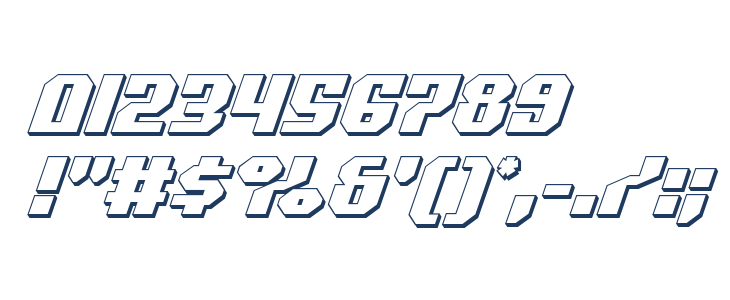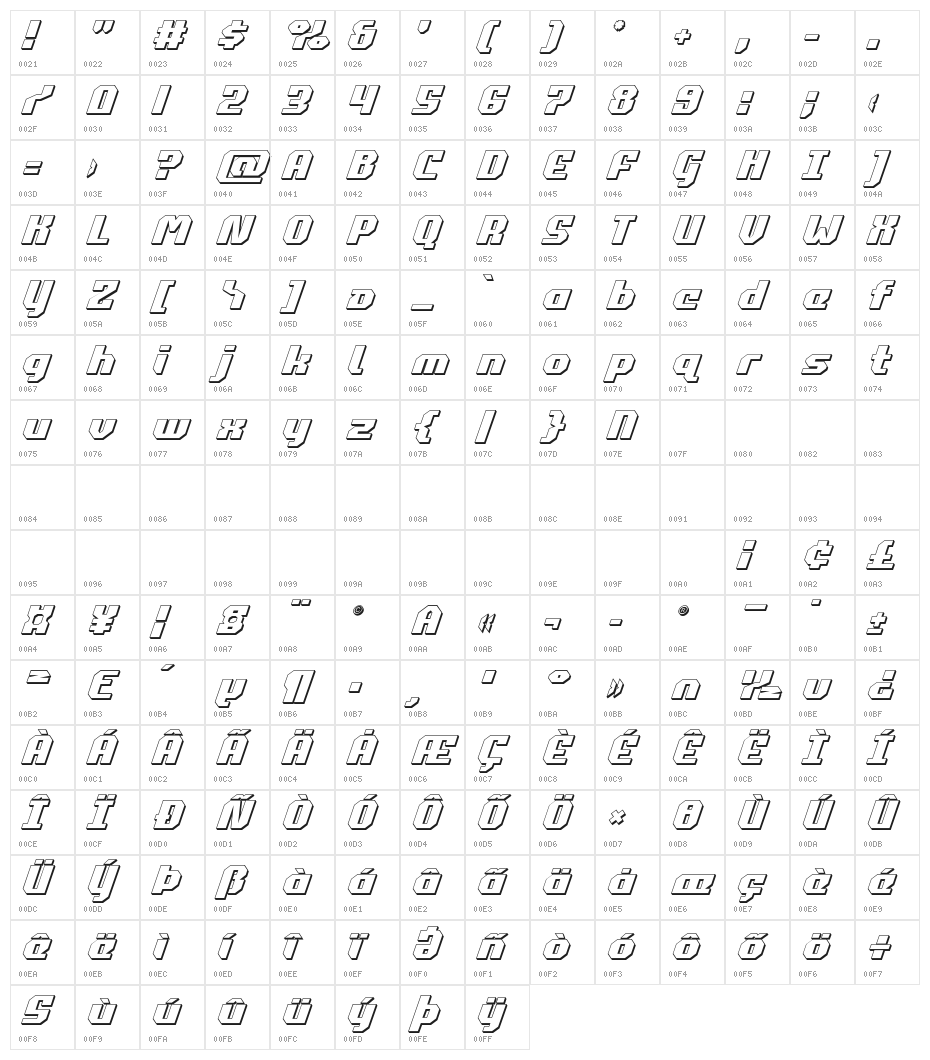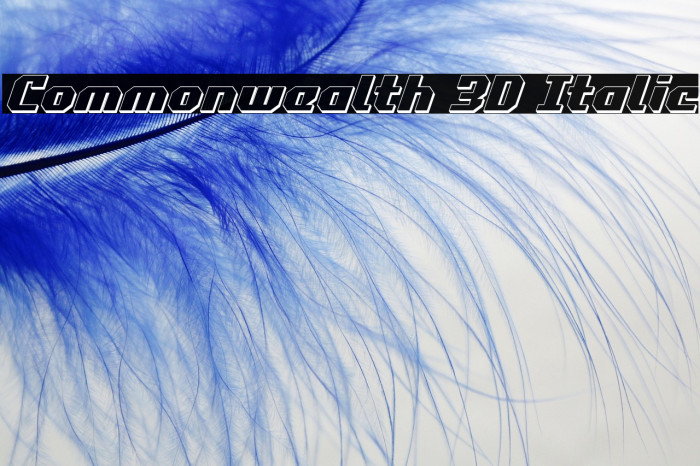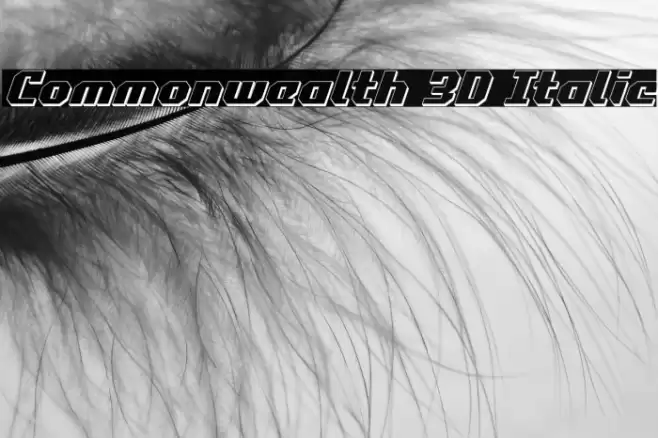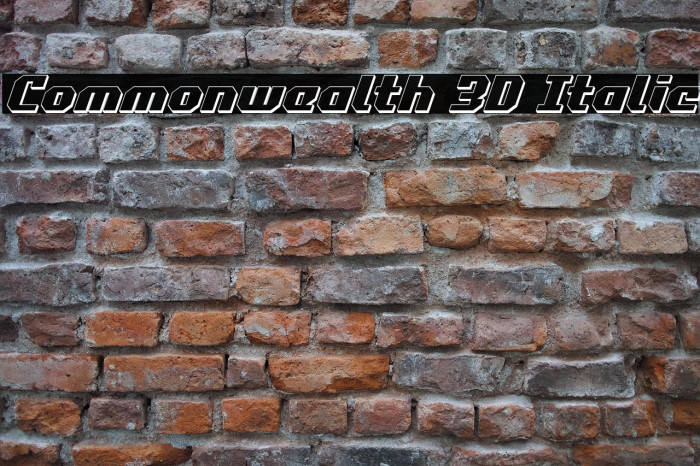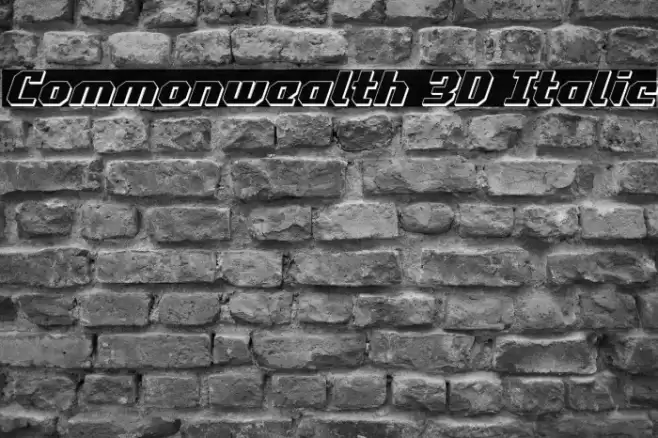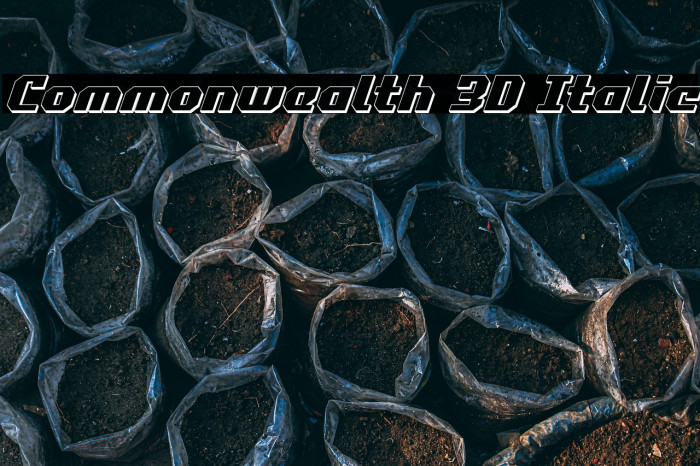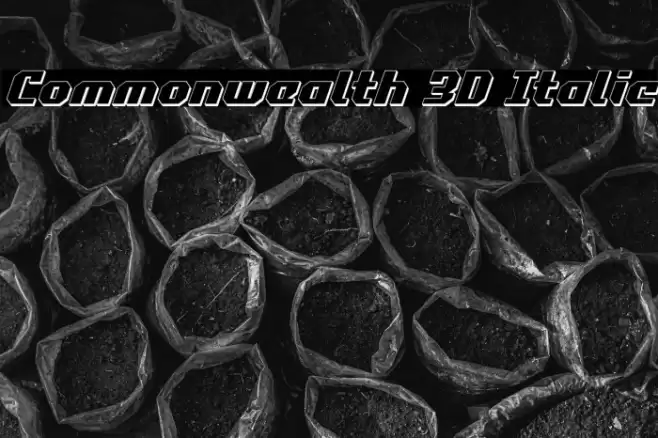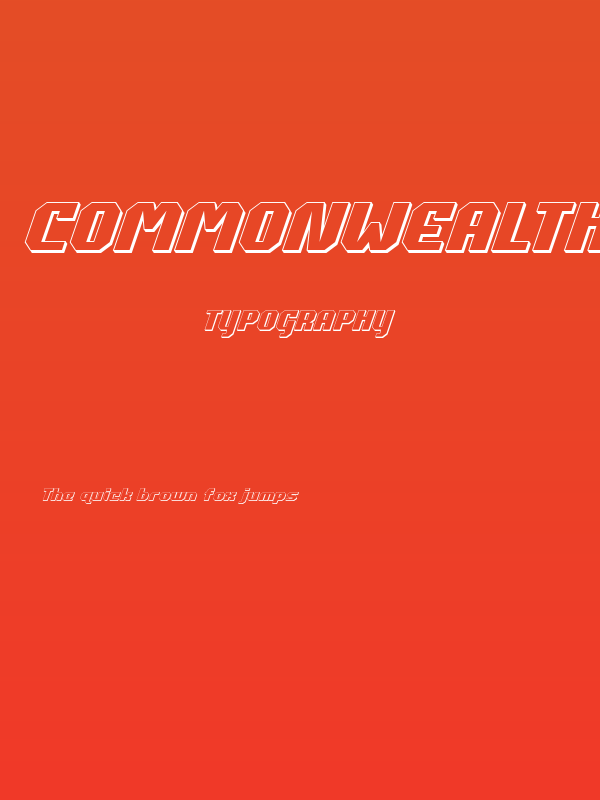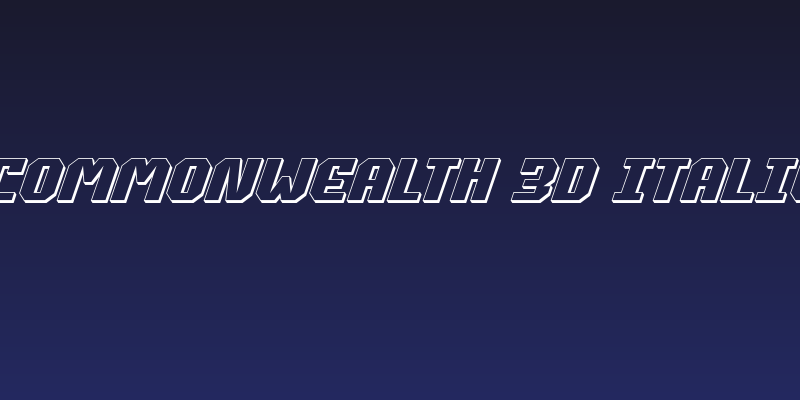
Commonwealth 3D Italic Font
Commonwealth 3D Italic Description
This font features a bold, three-dimensional design with an italic slant, giving it a dynamic and modern appearance. The characters are outlined, creating a striking visual effect that makes each letter stand out. The uppercase and lowercase letters maintain a consistent style, with sharp angles and clean lines that contribute to its futuristic look. Numbers and special characters are designed with the same attention to detail, ensuring uniformity across all elements. The font's unique style makes it ideal for projects that require a bold statement or a contemporary aesthetic.
| Proposed Projects | Ideal for headlines, posters, logos, and any design needing a bold, modern touch. |